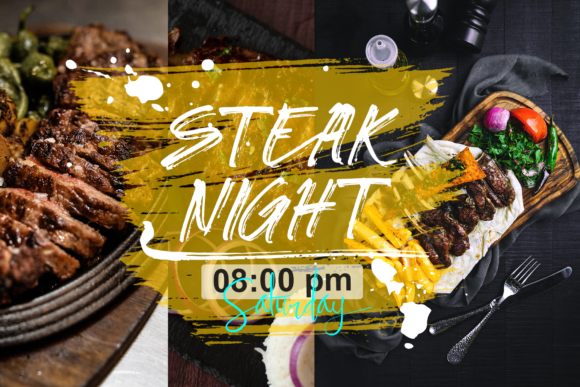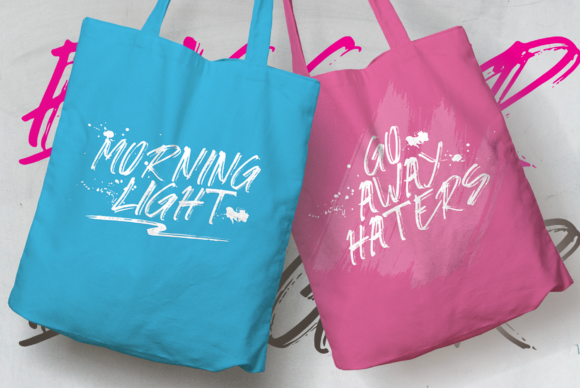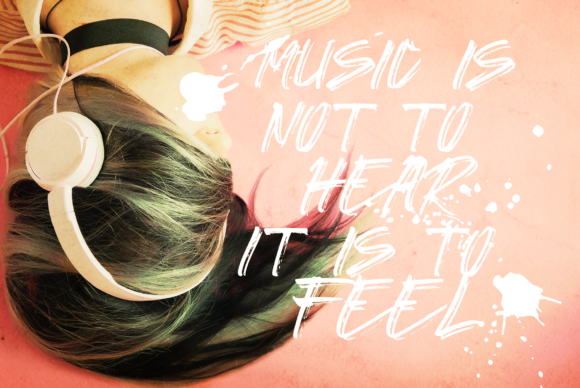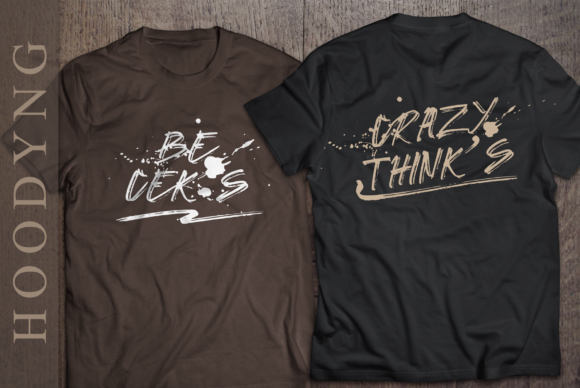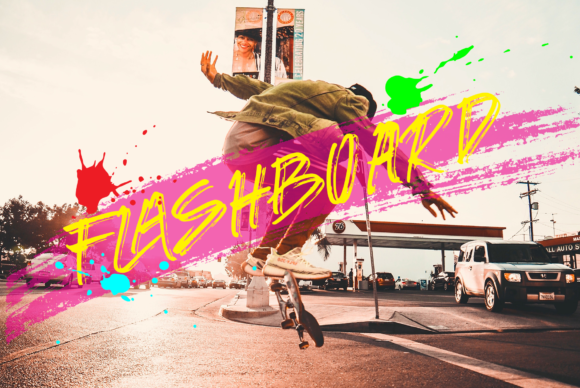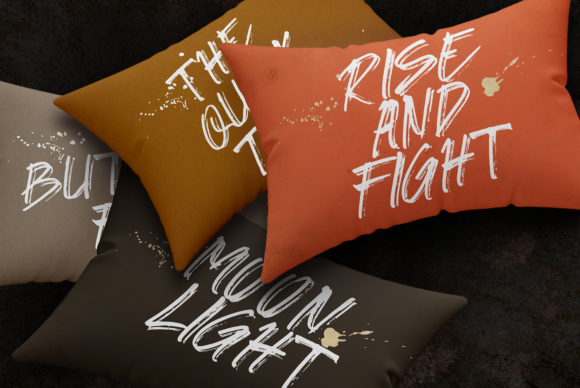
Gorilas Font: Unleash Your Creativity with this Unique Display Font
Are you tired of using the same old fonts for your creative projects? Look no further! Introducing Gorilas Font, an incredibly unique display font that is sure to make your ideas stand out. Created with the help of a brush pen, Gorilas Font brings a touch of handmade charm to your designs, making it perfect for crafters, designers, and anyone looking to add a personal touch to their work.
The Story Behind Gorilas Font
Gorilas Font was born out of a desire to create a font that captures the imperfections and uniqueness of handwritten text. Using a brush pen, the creator of Gorilas Font carefully crafted each letter, resulting in a font that is both elegant and quirky. The brush pen technique gives Gorilas Font a distinctive feel, with varying line widths and a hint of texture that sets it apart from more traditional fonts.
What Makes Gorilas Font So Special?
- Unique and eye-catching: Gorilas Font is unlike any other font you’ve seen before. Its distinctive style is sure to grab attention and make your designs stand out.
- Handmade charm: The brush pen technique used to create Gorilas Font gives it a warm, handmade feel that’s perfect for crafters and designers looking to add a personal touch to their work.
- Versatile: Gorilas Font is a display font, making it perfect for headlines, titles, and other large text applications. However, it can also be used for smaller text sizes, such as quotes, captions, and more.
How to Use Gorilas Font in Your Designs
Gorilas Font is perfect for a wide range of design applications, from crafting and scrapbooking to graphic design and digital art. Here are a few ideas to get you started:
- Headlines and titles: Use Gorilas Font to create eye-catching headlines and titles for your blog posts, articles, and social media graphics.
- Signs and posters: Add a personal touch to your signs and posters with Gorilas Font. Its unique style is sure to grab attention and make your message stand out.
- Invitations and cards: Use Gorilas Font to create beautiful, handmade-style invitations and cards for special occasions.
- Digital art: Experiment with Gorilas Font in your digital art projects, such as illustrations, paintings, and mixed media collages.
Tips and Tricks for Getting the Most Out of Gorilas Font
Here are a few tips and tricks to help you get the most out of Gorilas Font:
- Experiment with different sizes: Gorilas Font looks great at large sizes, but it can also be used for smaller text sizes. Experiment with different sizes to find the one that works best for your design.
- Pair it with other fonts: Gorilas Font pairs well with a wide range of other fonts. Try pairing it with a clean sans-serif font for a bold, modern look.
- Use it for emphasis: Use Gorilas Font to add emphasis to certain words or phrases in your design. Its unique style is sure to draw attention and make your message stand out.
Gorilas Font is an incredibly unique display font that’s sure to add a touch of handmade charm to your designs. With its distinctive style and versatile uses, it’s perfect for crafters, designers, and anyone looking to add a personal touch to their work. So why settle for the same old fonts when you can stand out with Gorilas Font? Download it today and start unleashing your creativity!